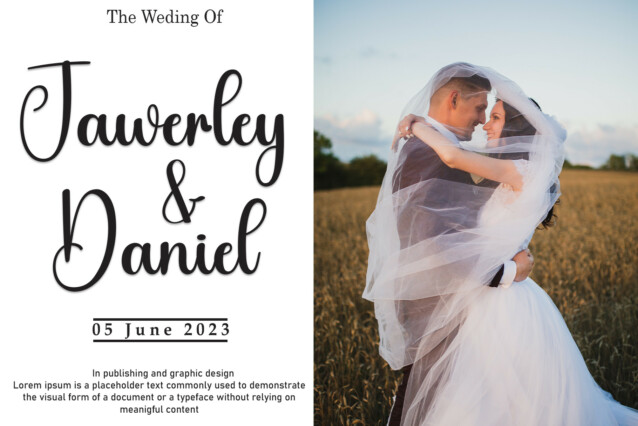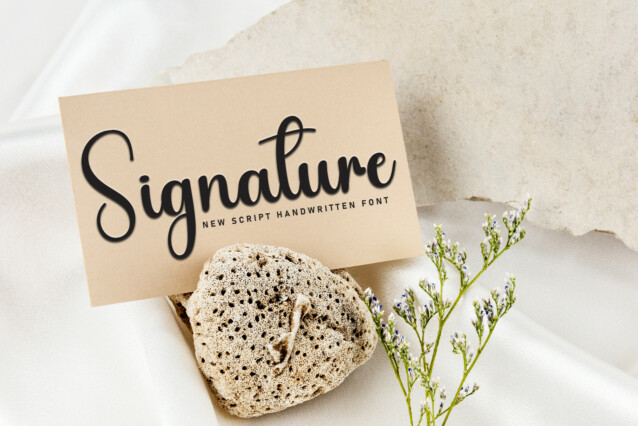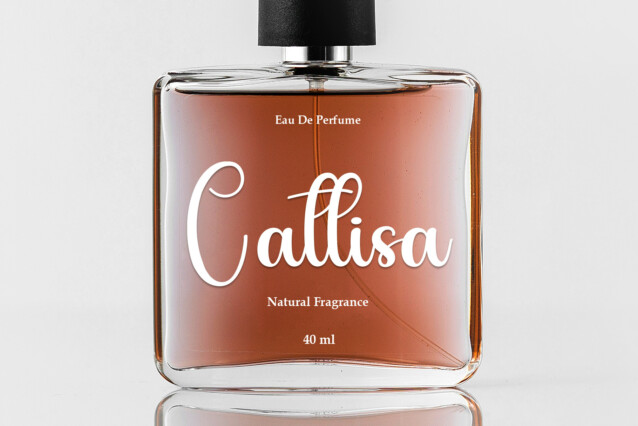
Bakery Calligraphy Typeface
Bakery Calligraphy Typeface is a thick lettered and incredibly unique display font. It can be used for various design ideas, particularly those related to children’s games, science, and space exploration.